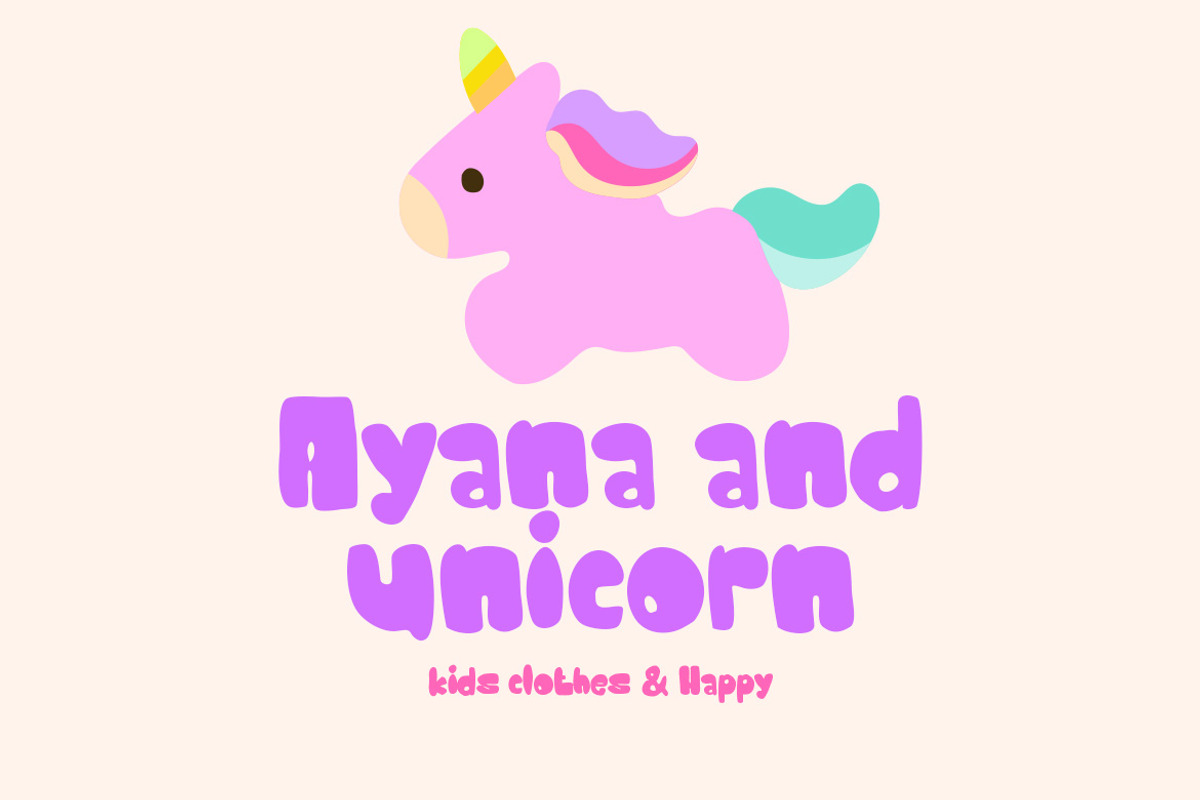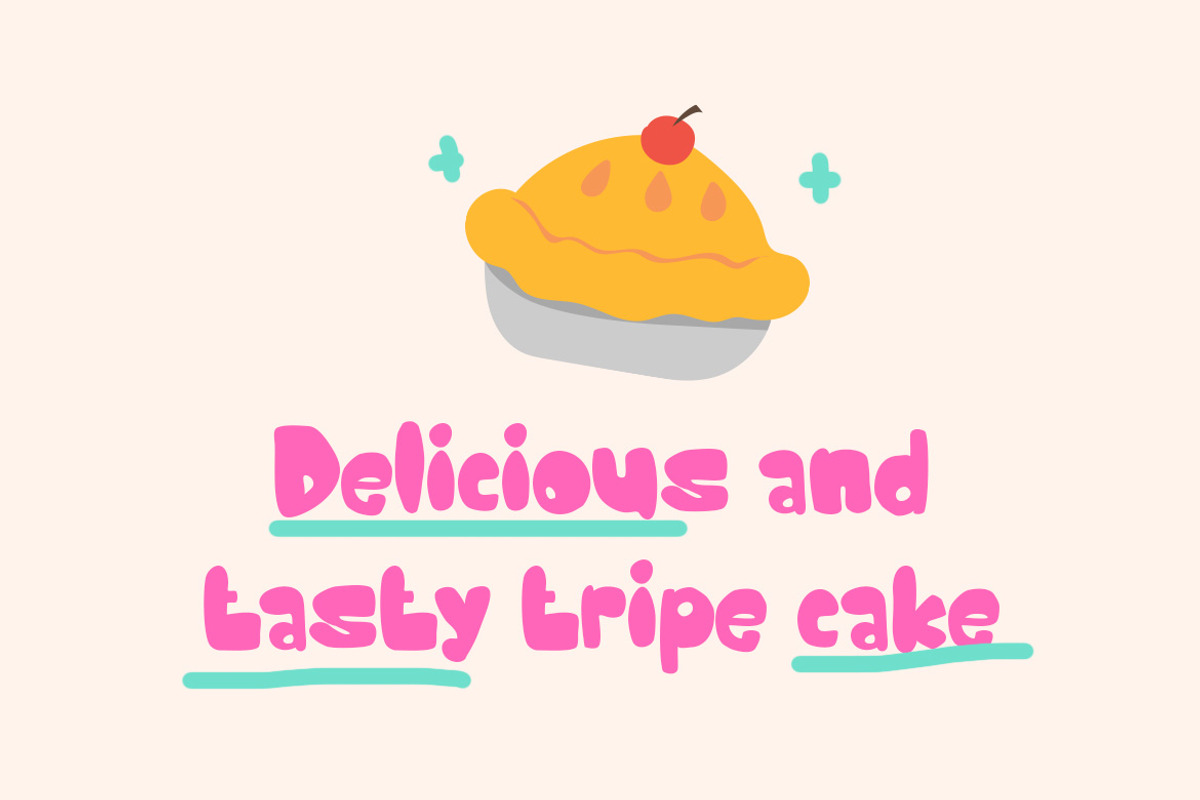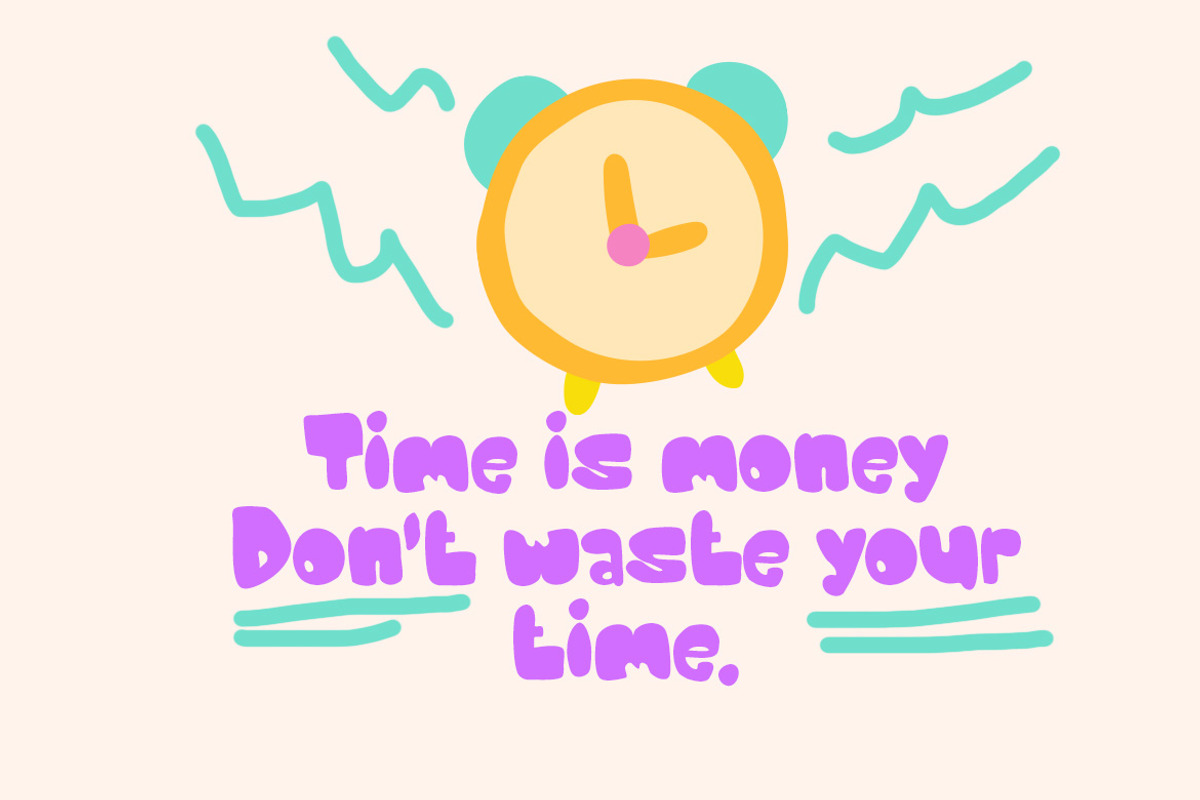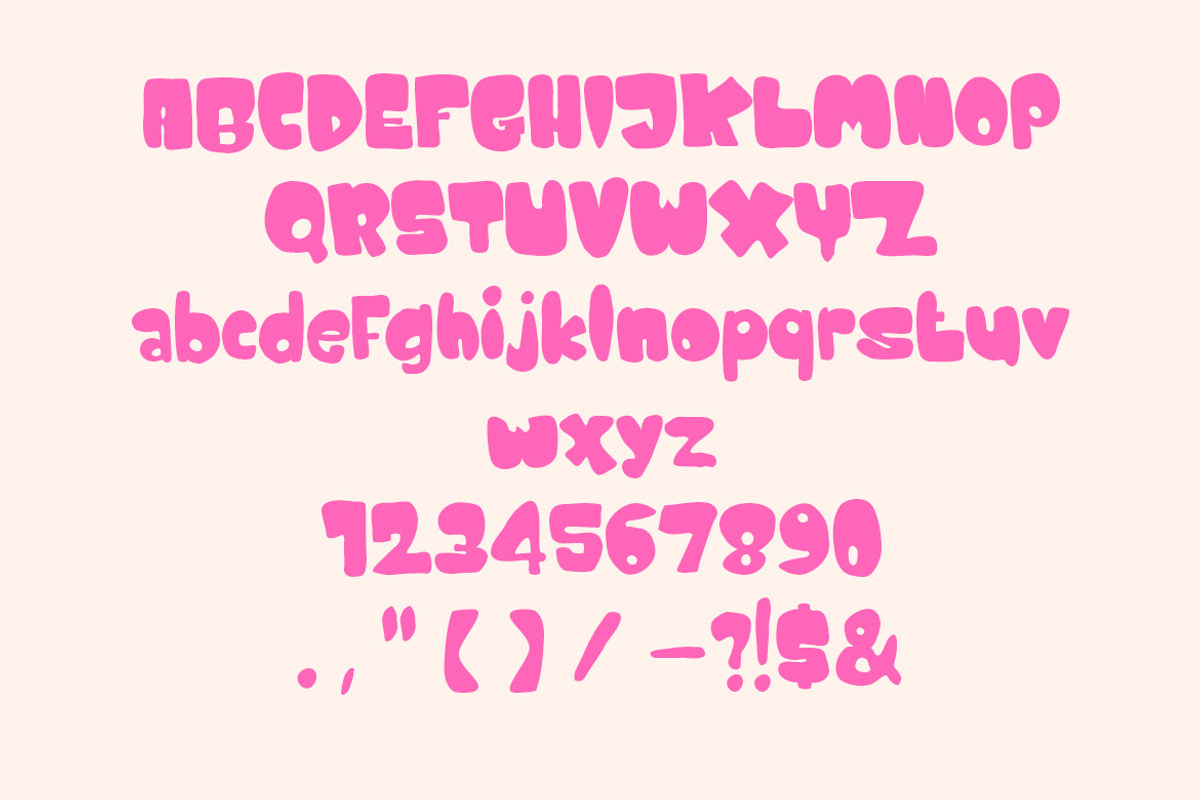
Power Bobble
Power Bobble is an ultra-bold display font characterized by its soft, bulbous letterforms and rounded terminals. The typeface features a low stroke contrast, giving it a chunky and uniform appearance that feels both friendly and approachable. Each glyph has a hand-drawn, organic quality with slightly irregular edges that enhance its whimsical aesthetic. The small, circular counters in letters like 'o' and 'B' contribute to its plump, bubble-like personality. This font is perfectly suited for children's media, toy packaging, and vibrant branding projects that require a sense of joy and creativity.